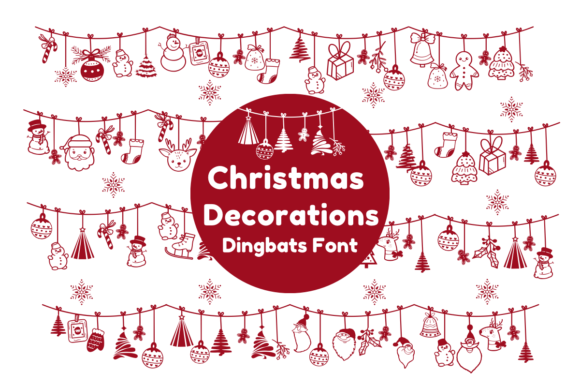
Christmas Decorations Font: Add a Festive Touch to Your Creative Projects
Are you looking for a unique and festive font to add a touch of Christmas magic to your creative projects? Look no further than the Christmas Decorations font, a dingbats font with a festive theme that’s perfect for enhancing your wedding invitations, DIY crafts, decorations, logos, and many other creative ideas.
What is Christmas Decorations Font?
Christmas Decorations font is a dingbats font, which means it’s a type of font that features symbols, icons, and graphics rather than traditional letters and numbers. This font is specifically designed with a festive theme, featuring a wide range of Christmas-themed decorations, including holly leaves, snowflakes, Christmas trees, and more.
Features of Christmas Decorations Font
The Christmas Decorations font comes with a range of features that make it perfect for adding a festive touch to your creative projects. Some of the key features of this font include:
- Festive theme: The font features a wide range of Christmas-themed decorations, including holly leaves, snowflakes, Christmas trees, and more.
- Dingbats characters: The font includes a range of dingbats characters, including symbols, icons, and graphics.
- Scalable: The font is scalable, meaning you can use it for a wide range of projects, from small crafts to large-scale designs.
Uses for Christmas Decorations Font
The Christmas Decorations font is incredibly versatile, and can be used for a wide range of creative projects, including:
- Wedding invitations: Add a festive touch to your wedding invitations with the Christmas Decorations font.
- DIY crafts: Use the font to add a personal touch to your DIY crafts, such as homemade cards, gift tags, and decorations.
- Decorations: Use the font to create custom decorations, such as Christmas signs, garlands, and banners.
- Logos: Use the font to create custom logos for your business or personal brand.
- Social media graphics: Use the font to create festive social media graphics, such as Christmas-themed Facebook posts and Instagram stories.
Tips for Using Christmas Decorations Font
Here are a few tips for using the Christmas Decorations font:
- Experiment with different sizes: The font is scalable, so experiment with different sizes to find the one that works best for your project.
- Combine with other fonts: Combine the Christmas Decorations font with other fonts to create a unique and eye-catching design.
- Use with images: Use the font with images, such as photos or illustrations, to create a festive and eye-catching design.
The Christmas Decorations font is a festive and versatile font that’s perfect for adding a touch of Christmas magic to your creative projects. With its wide range of Christmas-themed decorations, easy-to-use design, and scalable features, this font is perfect for crafters, designers, and DIY enthusiasts. Whether you’re creating wedding invitations, DIY crafts, decorations, logos, or social media graphics, the Christmas Decorations font is sure to add a festive touch to your designs.
Q: What is a dingbats font?
A: A dingbats font is a type of font that features symbols, icons, and graphics rather than traditional letters and numbers.